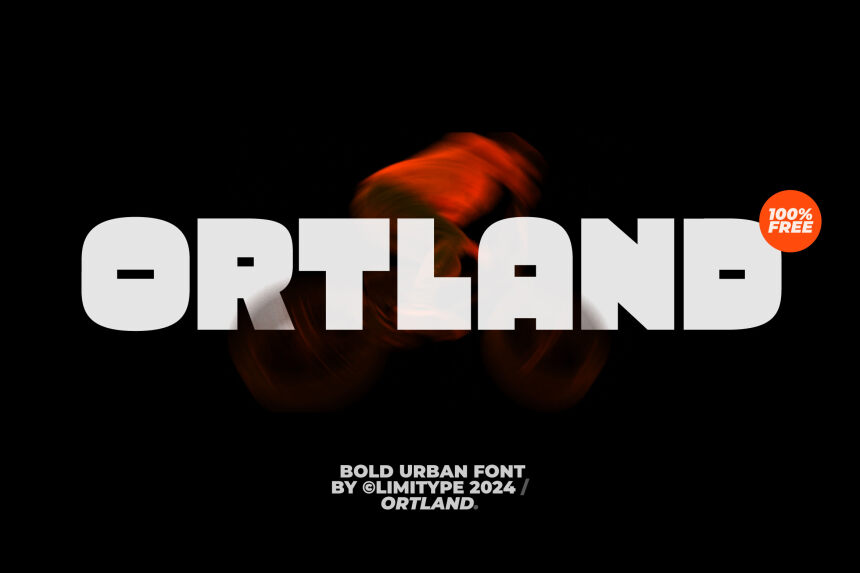
Ortland, crafted by Muhammad Muammar of Limitype, is a bold and expanded sans serif font that commands attention. Its clean lines and modern design create a striking visual impact, making it perfect for headlines and branding. The bold weight ensures a strong presence, while the expanded width gives it an open, airy feel.
Ortland's versatility makes it suitable for various design contexts, from eye-catching posters to sleek website headers. Its contemporary aesthetic harmonizes well with both minimalistic and dynamic compositions. Whether you're looking to make a statement or add a touch of modern sophistication, Ortland delivers with style and clarity.